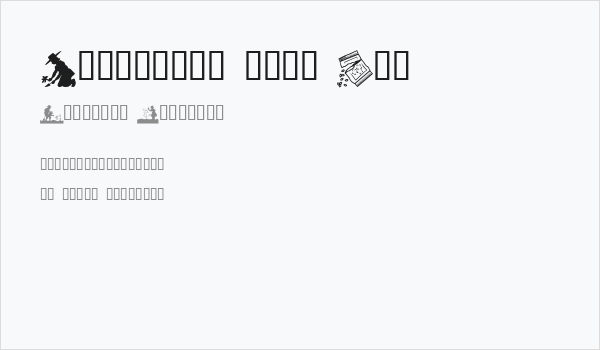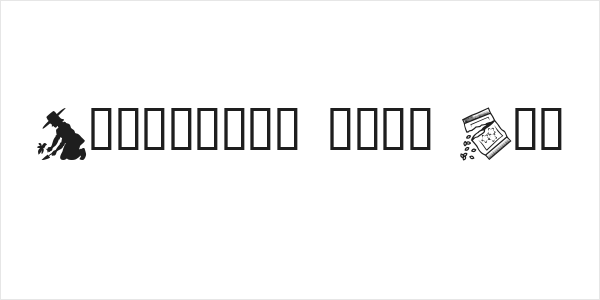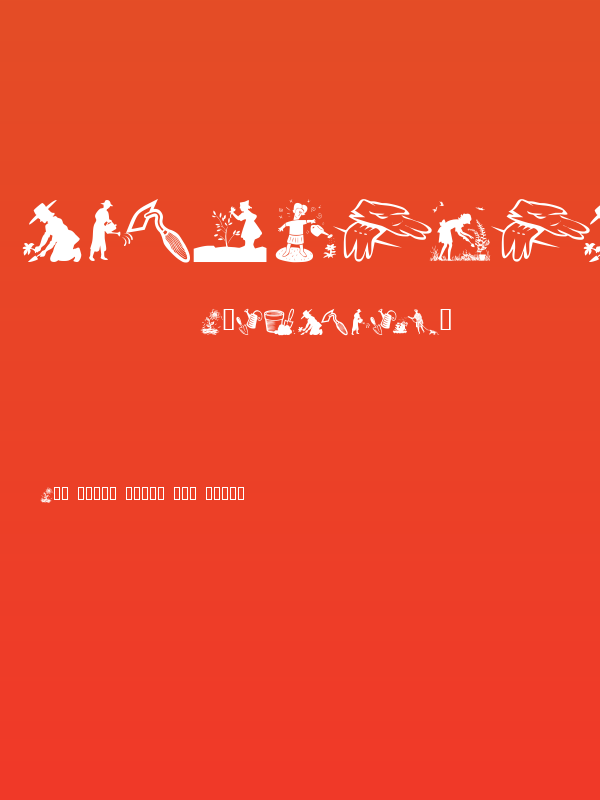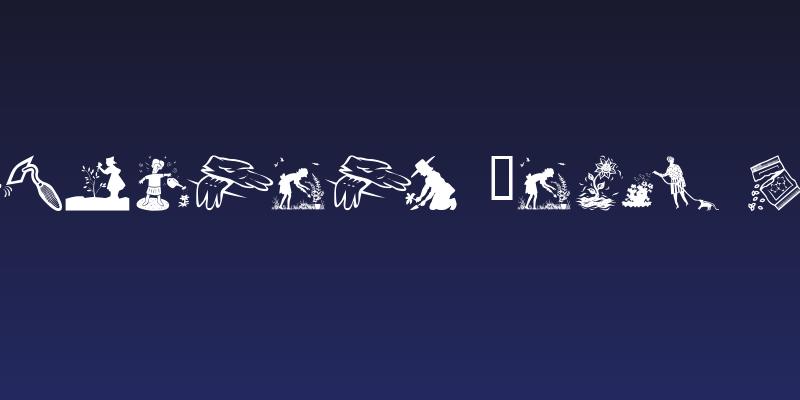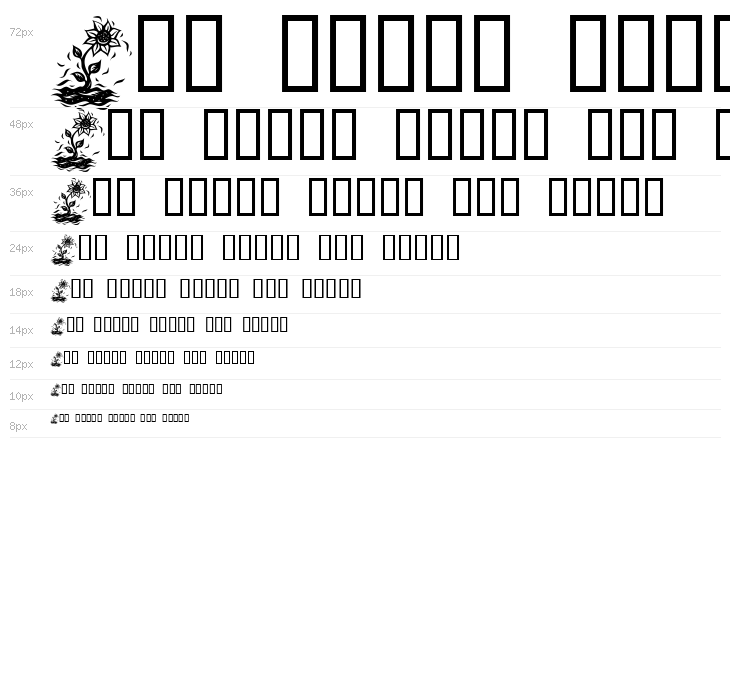
Gardening With Sue Font
Gardening With Sue Description
A decorative dingbat font featuring detailed gardening-themed illustrations, including people gardening, tools, plants, gloves, watering cans, seed packets, and other related motifs. The glyphs are silhouette-style, high-contrast, and designed for use as icons or embellishments rather than traditional text.
| Overall Style | Decorative, Thematic |
| Use Case | Icons, Decorative elements, Themed graphics |
| Proposed Projects | Garden club flyers, event posters, scrapbooking, educational materials, decorative borders, themed invitations. |